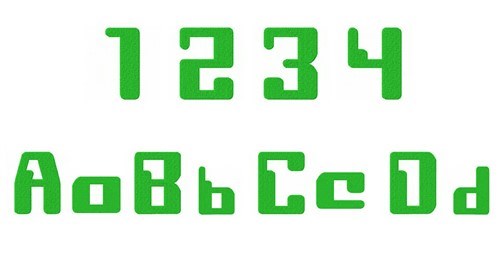
Unicorn Creatives is happy to present Abacus Craft Embrilliance - Block Style Alphabet - BX font machine embroidery font which has Block-style machine embroidery font designed for bold, geometric projects like custom signage and bags. Offered in BX font and Embrilliance format. included. If you would like to view more embroidery fonts and alphabets please search our embroidery fonts page.
Abacus Craft Embrilliance - Block Style Alphabet - BX font